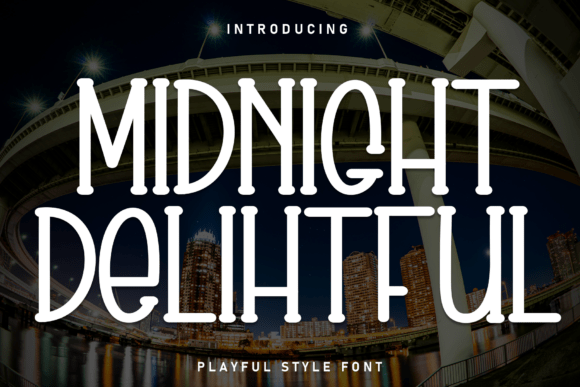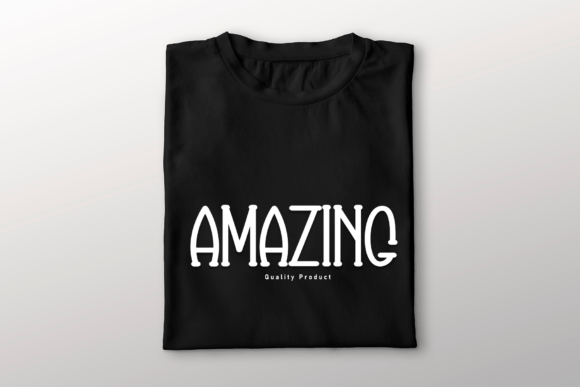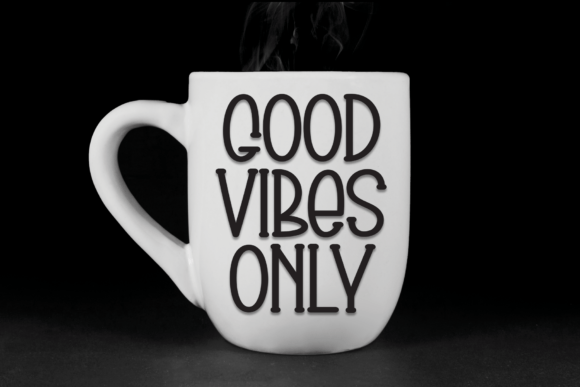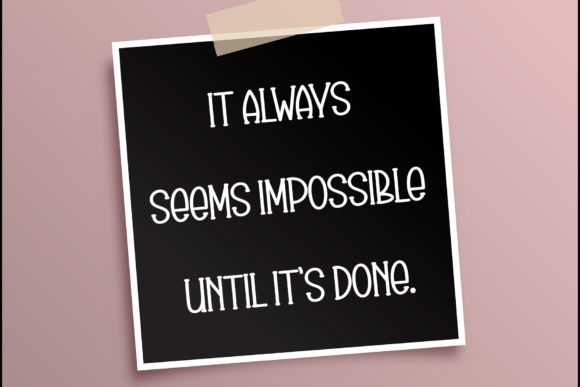
Midnight Delihtful Font: A Playful Display Font for Branding
About the Midnight Delihtful Font
From logos to headlines, the Midnight Delihtful Font is the perfect choice for making a lasting impression. Bring personality and flair to your designs with this playful, artistic typeface that captures the charm of natural handwriting with a bold, display-ready twist. Perfect for posters, product packaging, branding, and social media graphics, this font adds a casual, human touch to any project. Its expressive strokes and quirky vibe make it stand out while still feeling authentic and approachable.
Midnight Delightful excels in display applications such as headlines, logos, short taglines, and packaging where its playful energy shines. It’s ideal for brands targeting a younger demographic or those with a fun, approachable personality. Avoid using it for large blocks of body text or UI elements; its irregular stroke weights and informal style hinder readability in these contexts.
Pairing it with a clean sans-serif like Open Sans or Lato provides a strong contrast, grounding the playful energy of Midnight Delightful. For a more sophisticated feel, consider a classic serif such as Garamond or a geometric sans-serif like Futura. These pairings balance the hand-drawn charm with a touch of refinement.
Midnight Delightful’s core personality is undeniably cheerful and expressive, making it a perfect choice for projects needing a touch of whimsy without sacrificing legibility in short bursts. It projects a friendly, approachable image, while maintaining a bold, memorable presence.
Midnight Delihtful Font Usage Examples
Midnight Delihtful Font Example